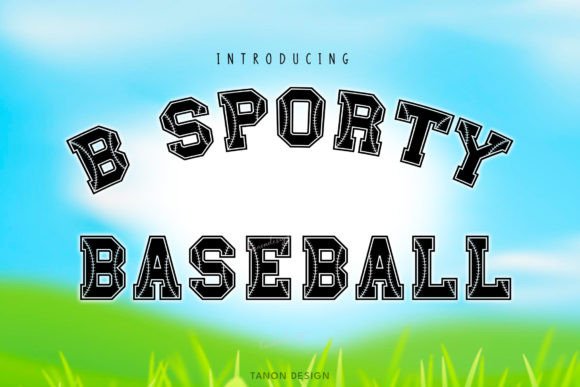
B Sporty Baseball Font: The Ultimate Choice for Sports-Themed Designs
Are you looking for a font that can add a touch of fun and coolness to your designs? Look no further than the B Sporty Baseball Font. This fantastic font is perfect for creating sports-themed designs that will leave a lasting impression on your audience. In this article, we’ll explore the features and benefits of the B Sporty Baseball Font and how it can elevate your project designs.
What is B Sporty Baseball Font?
B Sporty Baseball Font is a unique and creative font designed specifically for sports-themed designs. Its fun and cool style make it perfect for creating eye-catching designs that will stand out from the crowd. The font is inspired by the classic look of baseball jerseys and equipment, making it an ideal choice for baseball-themed designs.
Key Features of B Sporty Baseball Font
- Fun and Cool Style: The B Sporty Baseball Font has a unique and playful style that will add a touch of fun and coolness to your designs.
- High-Quality Design: The font is designed with high-quality graphics, ensuring that it looks great in any design.
- Versatile: The font is versatile and can be used for a wide range of designs, including t-shirts, mugs, digital designs, crafts, cards, and more.
- Easily Readable: The font is easily readable, making it perfect for designs that require a clear and concise message.
Benefits of Using B Sporty Baseball Font
Using the B Sporty Baseball Font can bring numerous benefits to your designs. Here are some of the advantages of using this fantastic font:
- Stand Out from the Crowd: The B Sporty Baseball Font is unique and creative, making it perfect for designs that need to stand out from the crowd.
- Perfect for Sports-Themed Designs: The font is specifically designed for sports-themed designs, making it an ideal choice for baseball-themed designs.
- Increased Engagement: The font’s fun and cool style can help increase engagement and interaction with your audience.
- Professional Look: The high-quality design of the font gives it a professional look that will elevate your designs.
How to Use B Sporty Baseball Font
Using the B Sporty Baseball Font is easy and straightforward. Here are some tips on how to use the font:
- T-Shirts: Use the font to create fun and cool t-shirt designs that will appeal to baseball fans.
- Mugs: Create eye-catching mug designs that will make a great addition to any baseball fan’s collection.
- Digital Designs: Use the font to create digital designs such as social media graphics, flyers, and brochures.
- Crafts: Use the font to create fun and unique craft designs such as baseball-themed cards and gift tags.
Tips for Getting the Most Out of B Sporty Baseball Font
Here are some tips for getting the most out of the B Sporty Baseball Font:
- Experiment with Different Colors: Experiment with different colors to find the perfect combination that works with your design.
- Use it with Other Fonts: Use the B Sporty Baseball Font with other fonts to create a unique and creative design.
- Keep it Simple: Keep your design simple and concise to ensure that the font is easily readable.
In conclusion, the B Sporty Baseball Font is a fun and cool font that is perfect for creating sports-themed designs. Its unique and creative style makes it stand out from the crowd, and its high-quality design ensures that it looks great in any design. With its versatility and ease of use, the B Sporty Baseball Font is an ideal choice for designers who want to create eye-catching designs that will leave a lasting impression on their audience.
- What is B Sporty Baseball Font?: B Sporty Baseball Font is a fun and cool font designed specifically for sports-themed designs.